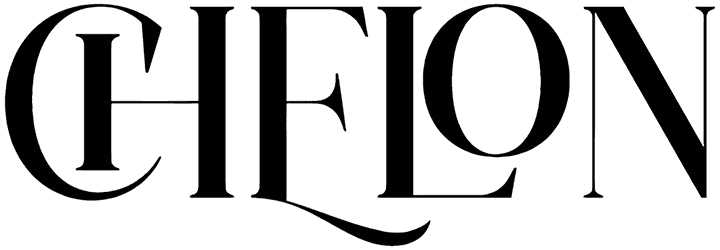
Looking for a font with no expiration date for your next project? So add Chelon to your library now. This font can convey a timeless and uncomplicated sense of different styles and recall an old class with your writing.
It doesn’t matter if your industry is in the field of technology or if you work in selling second-hand clothes; in any case, this ligature font will add elegance to your writing with its 4 eternal styles.